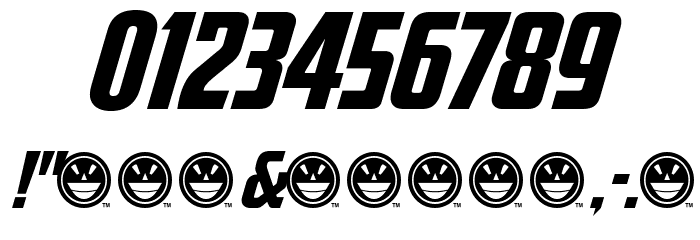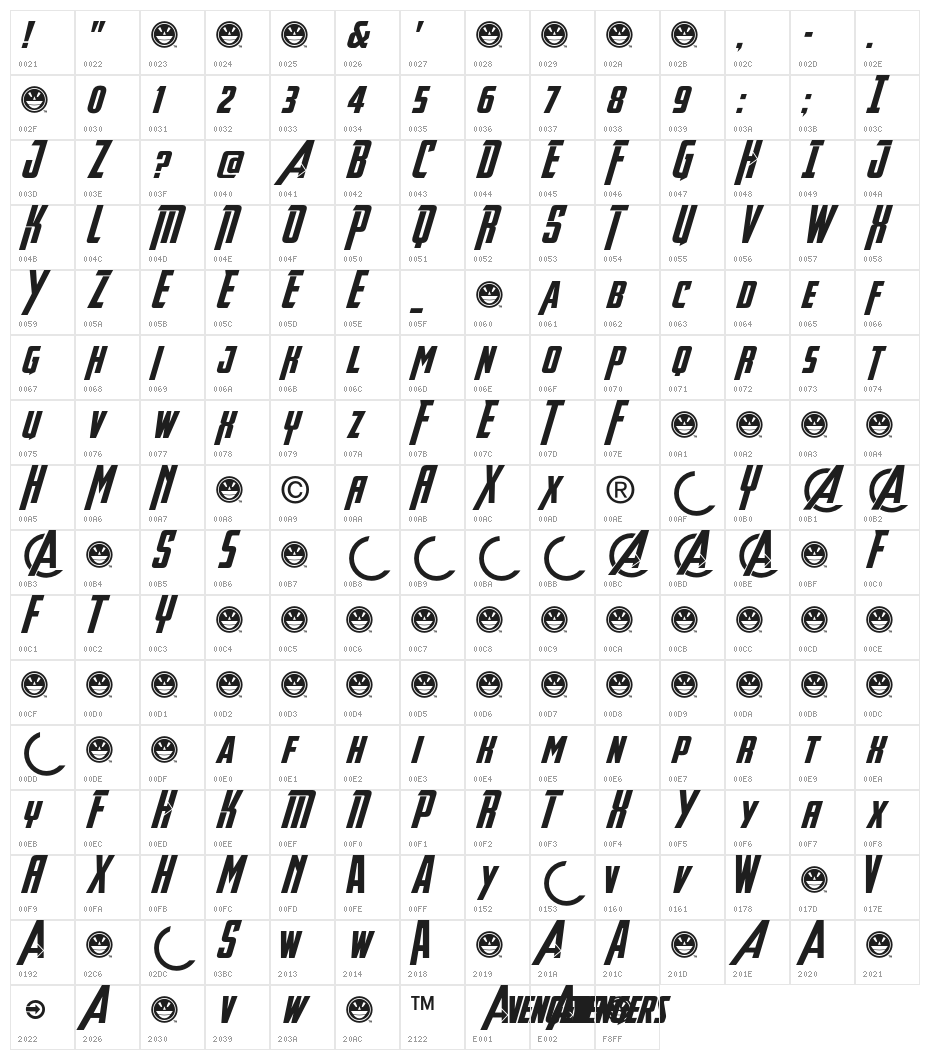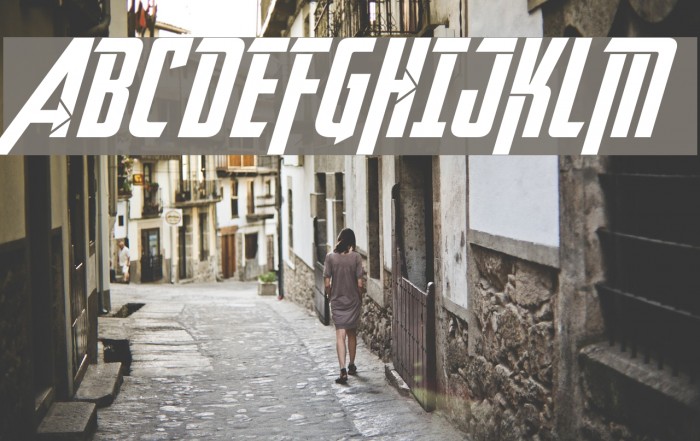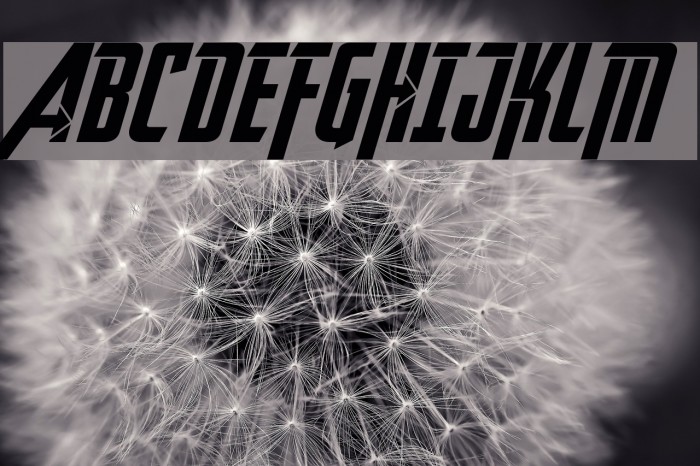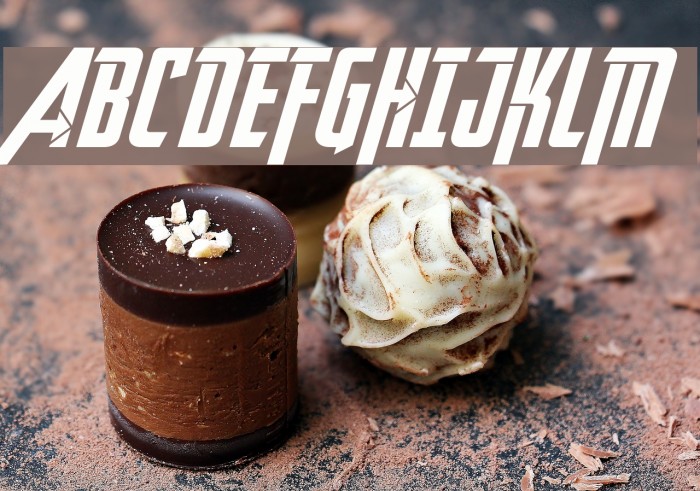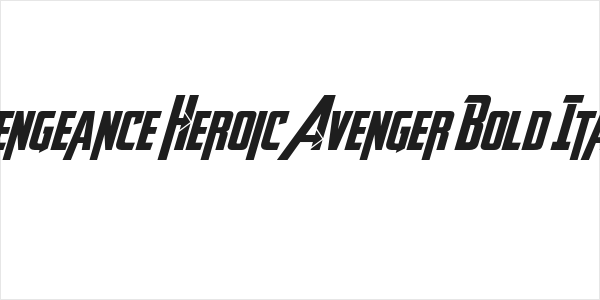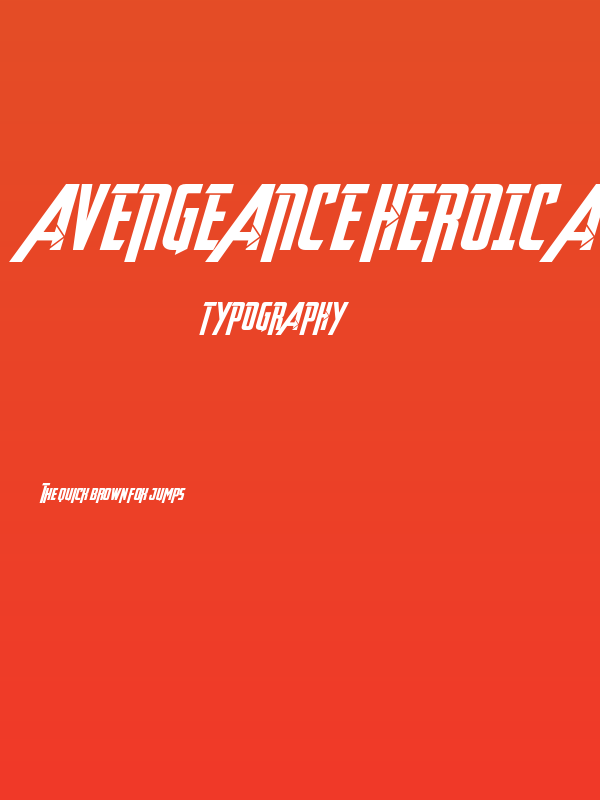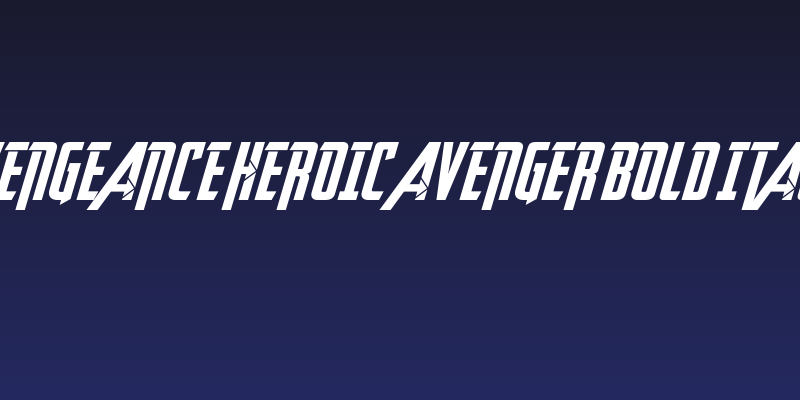
Avengeance Heroic Avenger Bold Italic Font
Avengeance Heroic Avenger Bold Italic Description
This font features a bold and italicized style with a strong, dynamic presence. The characters are sharply angled, giving a sense of movement and energy. The uppercase letters are particularly striking, with a futuristic and heroic appearance. The numbers and special characters maintain this bold aesthetic, ensuring consistency throughout. The overall design is reminiscent of comic book or superhero themes, making it ideal for projects that require a dramatic and impactful look.
| Overall Style | Modern, Heroic, Dynamic |
| Proposed Projects | Ideal for comic book covers, superhero-themed posters, video game titles, and action movie promotions. |